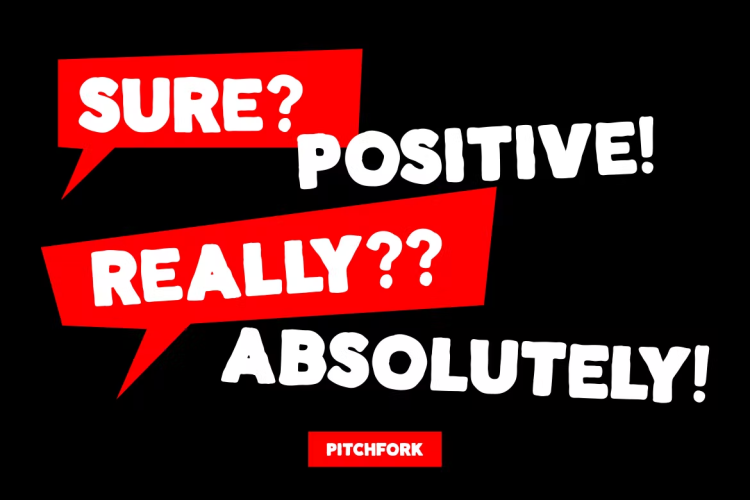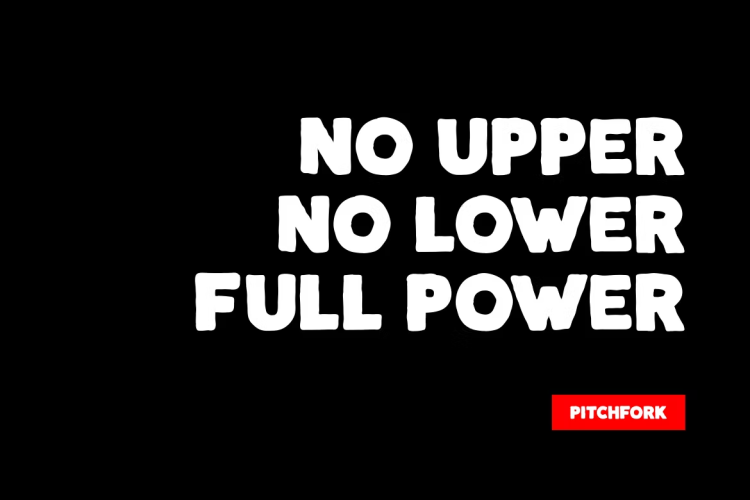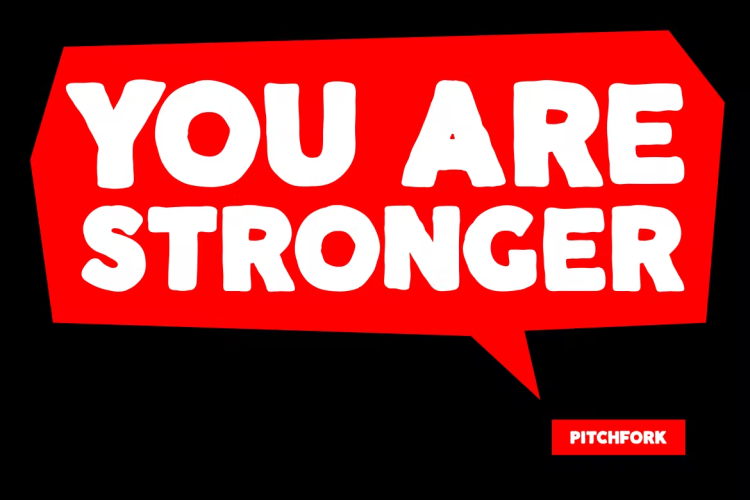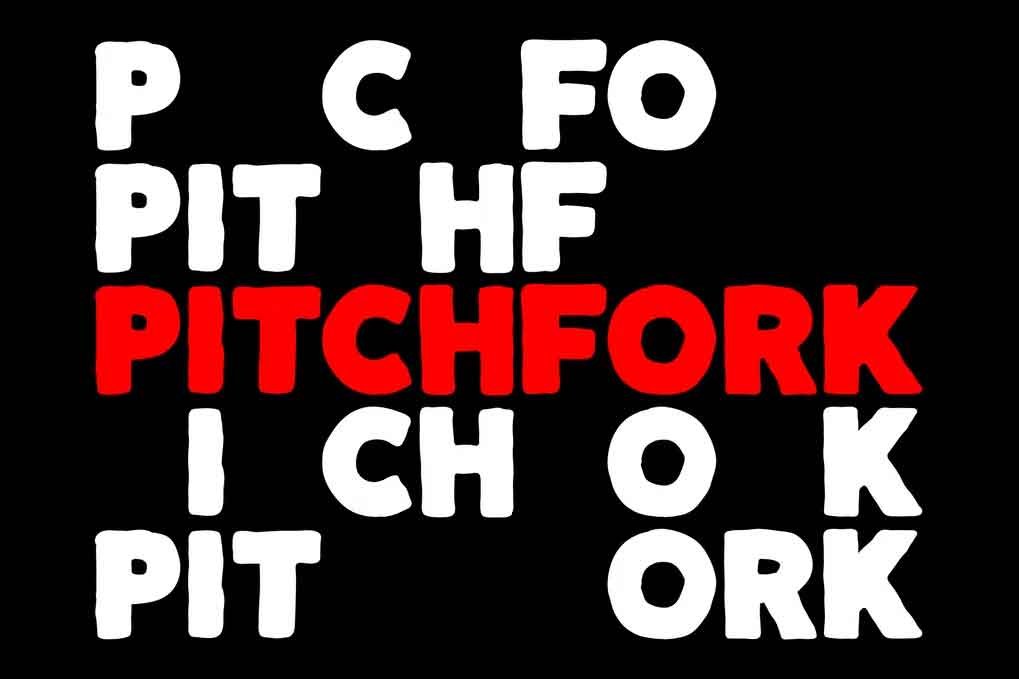
Pitchfork Powerful Sport Font
Pitchfork comes with all caps, full power, no nonsense. Perfect for any sport related poster and motivational print, t-shirt, headline, gymnastic quote, anything ! PITCHFORK !
Pitchfork Powerful Sport Font is a Sans Serif Fonts font that brings a professional and versatile look to your projects. Pitchfork comes with all caps, full power, no nonsense.